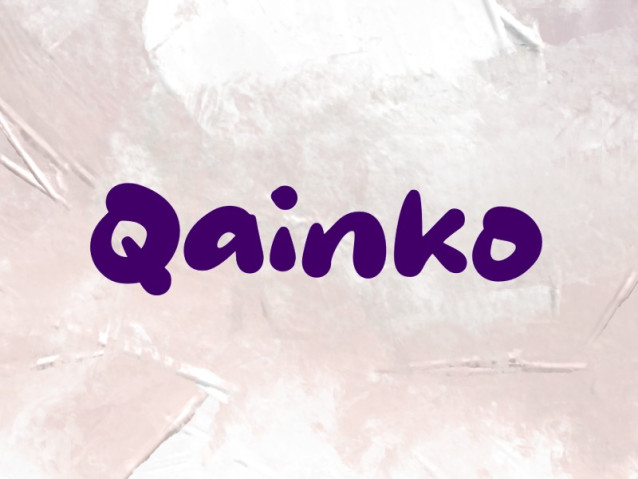
Qainko Font
Qainko Font is a playful and modern display typeface designed to bring warmth and personality to your projects. With its soft, rounded shapes and bold presence, Qainko is perfect for children’s content, branding, packaging, social media graphics, and cheerful visual identities. Its approachable style creates a sense of fun and creativity while remaining clear and readable across both print and digital platforms.